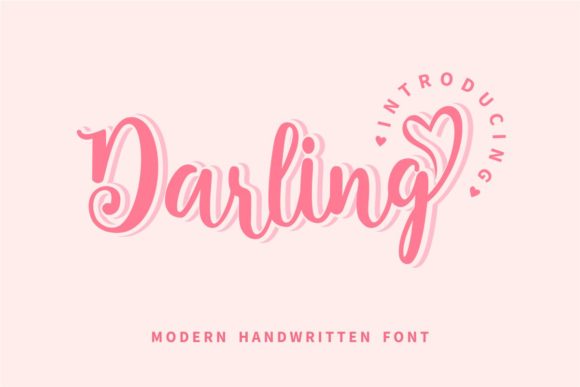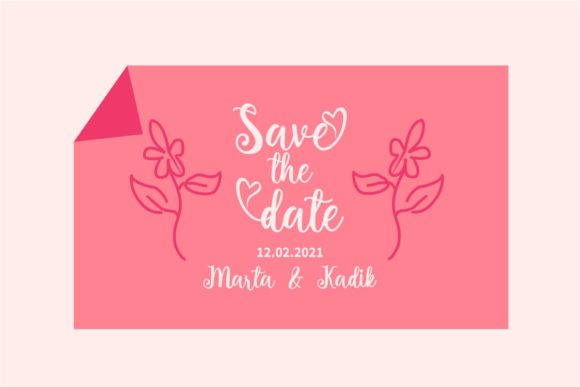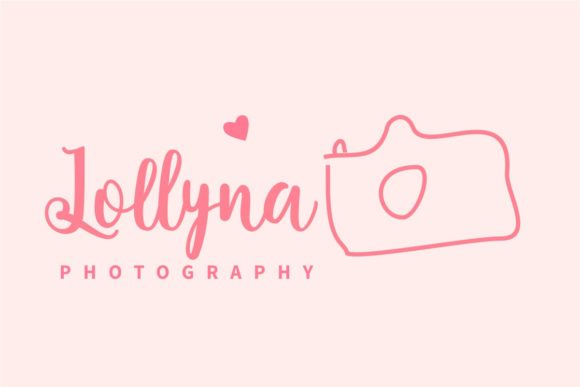
About Darling Font
Darling is a charming and enchanting script font that exudes romance and elegance. Its delicate and flowing letterforms add a touch of sophistication to any design, making it a perfect choice for a wide range of projects requiring a personalized and heartfelt touch.
With its PUA encoding, Darling grants easy access to a plethora of beautiful glyphs and swashes, enabling you to customize and enhance your designs effortlessly. This feature allows you to create unique and captivating typographic compositions that reflect the personality and emotion of your message.
In wedding invitations, Darling sets the stage for a dreamy and romantic celebration. Its graceful curves and stylish flourishes convey a sense of love and joy, making recipients feel cherished and excited for the special occasion.
Thank you cards take on a heartfelt and personal tone with Darling, as its exquisite appearance adds warmth and sincerity to your messages of gratitude. The font’s elegant calligraphy evokes appreciation and creates a memorable impression on recipients.
For greeting cards, Darling’s enchanting script brings a touch of magic and charm, making your heartfelt wishes and sentiments even more meaningful and memorable.
When used in logos, Darling can create a distinctive and sophisticated brand identity. Its unique and stylish letterforms communicate a sense of elegance and professionalism, leaving a lasting impact on customers and clients.
In various design projects, such as social media posts and branding materials, Darling adds a touch of refinement and romance, capturing the attention and admiration of your audience.
Overall, Darling is a versatile and beautiful script font that elevates the beauty and impact of your projects. With its delicate and romantic style, it conveys emotions and sentiments with grace and sophistication, making it an ideal choice for adding a personal and heartfelt touch to any design. Embrace the charm of Darling and let it inspire you to create captivating and unforgettable designs that resonate with your audience.